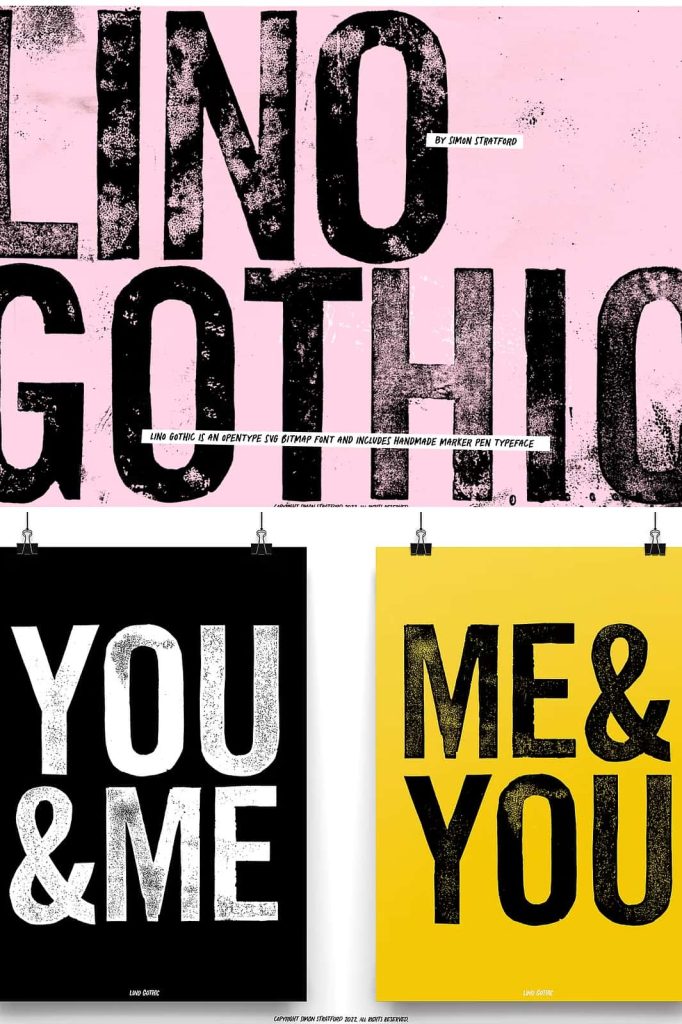
Like letterpress printing? My new Display Font is full of letterpress texture I made the Lino Gothic from multiple prints made out of a linocut. It was then hand-printed on paper, giving it a weathered vintage woodtype effect. It also includes a free hand drawn script font.